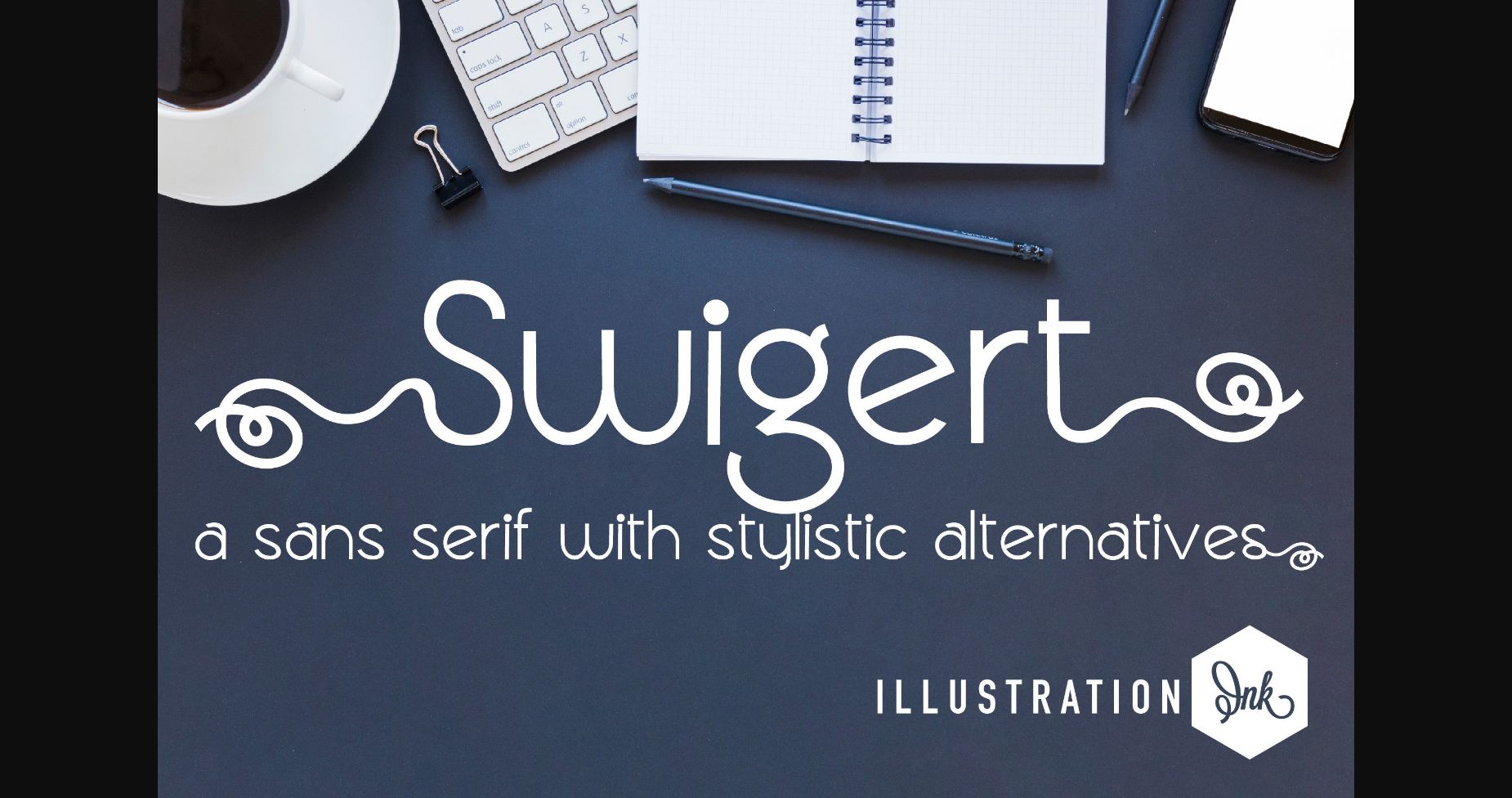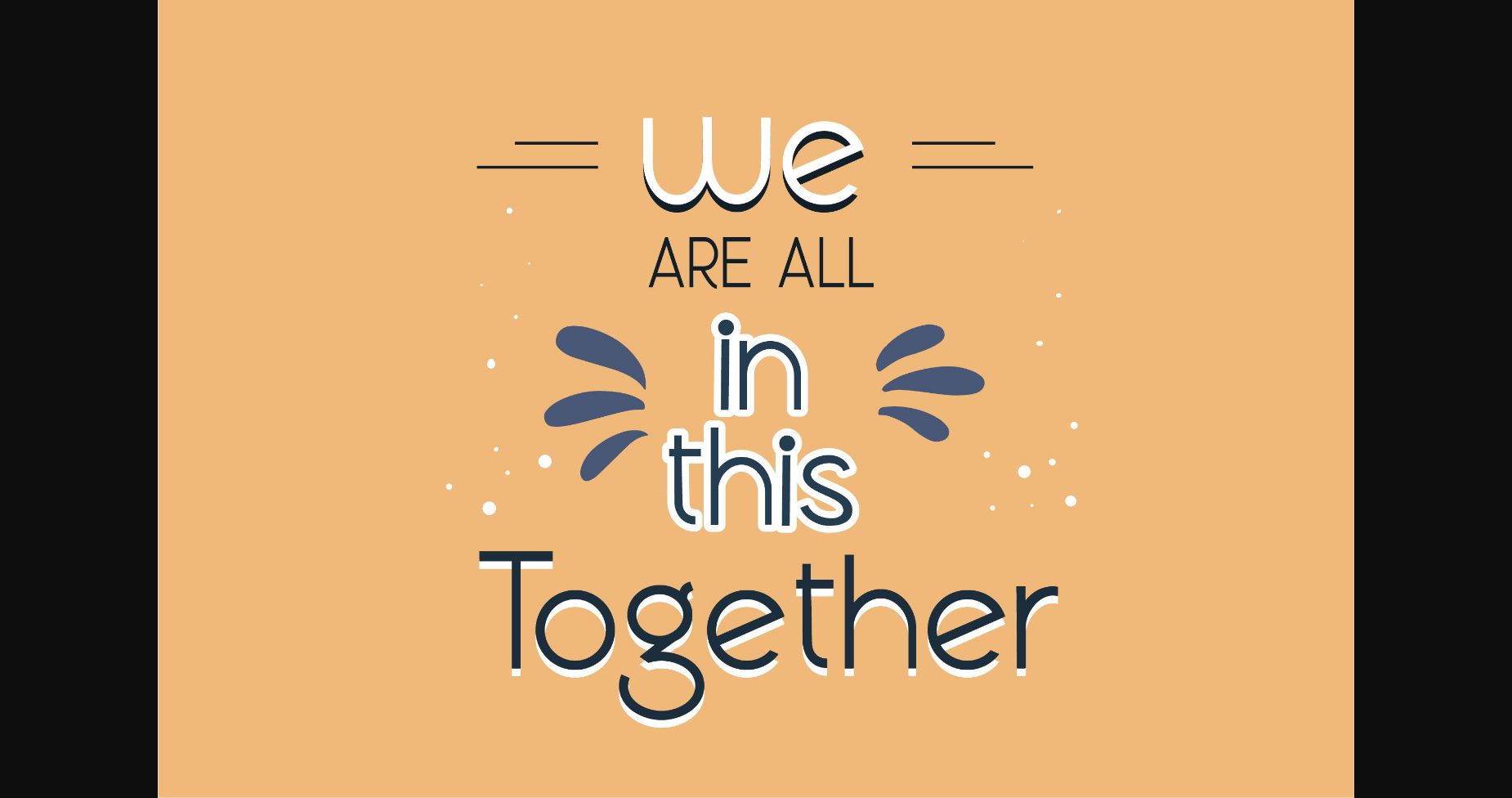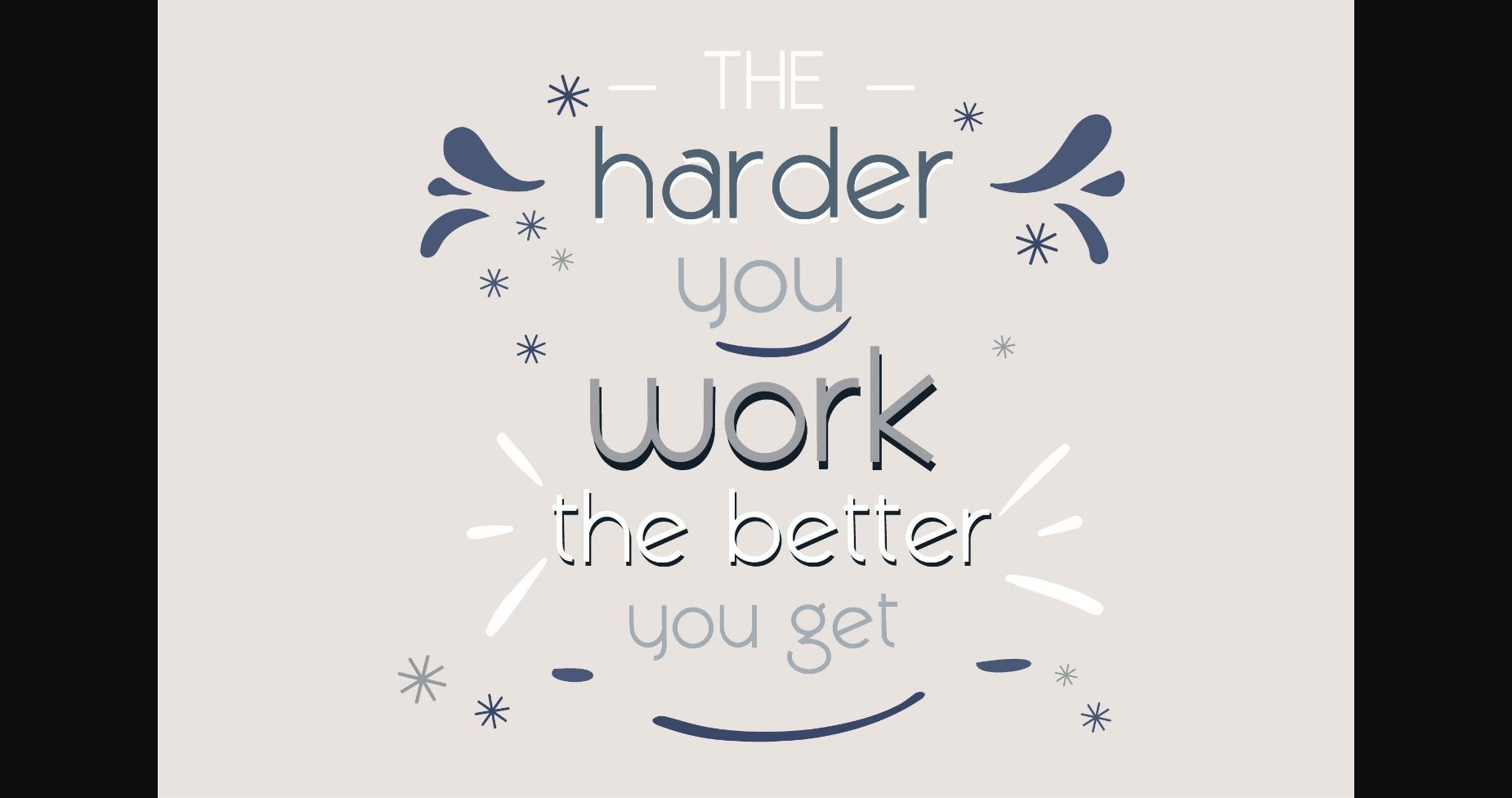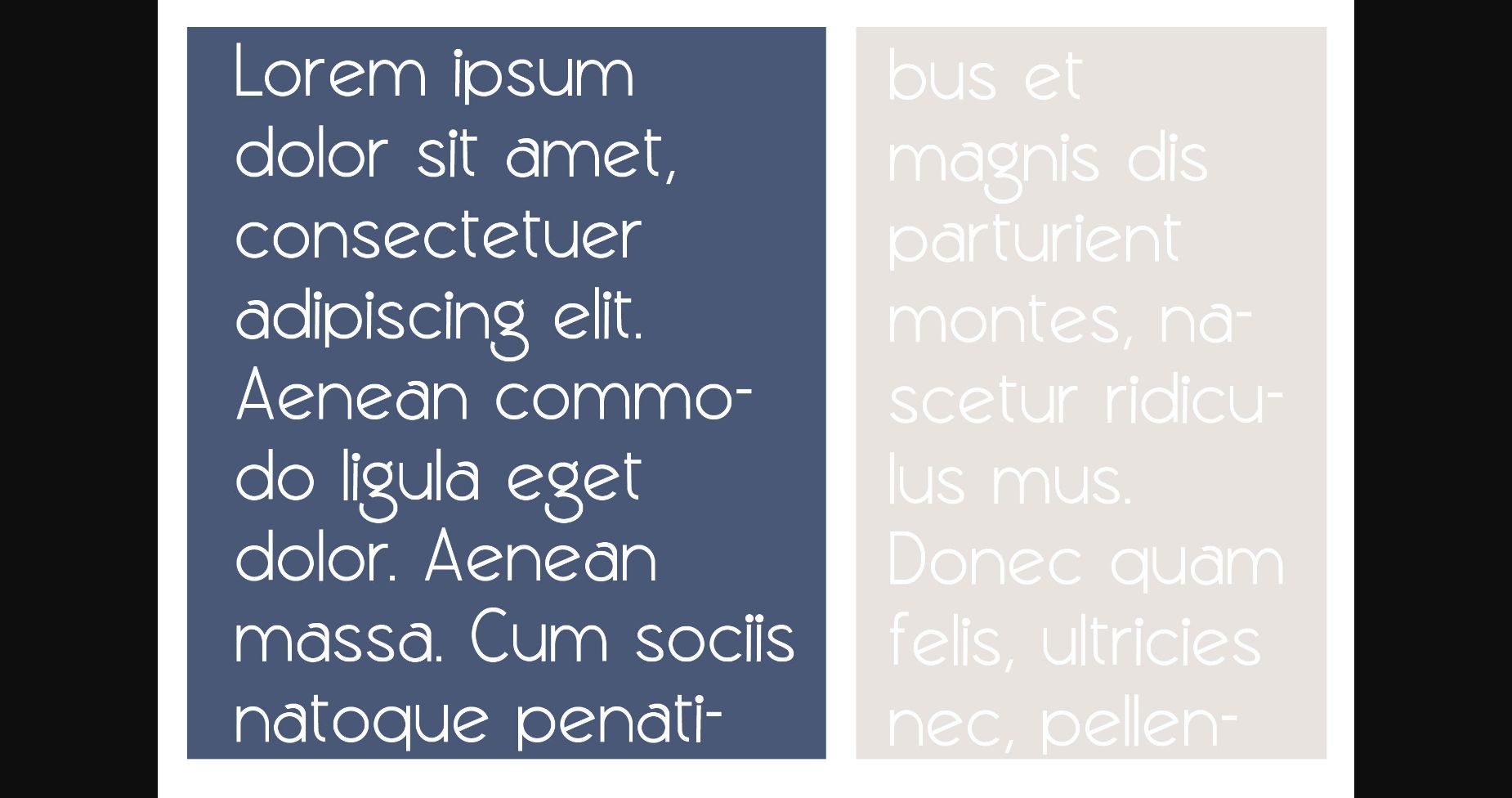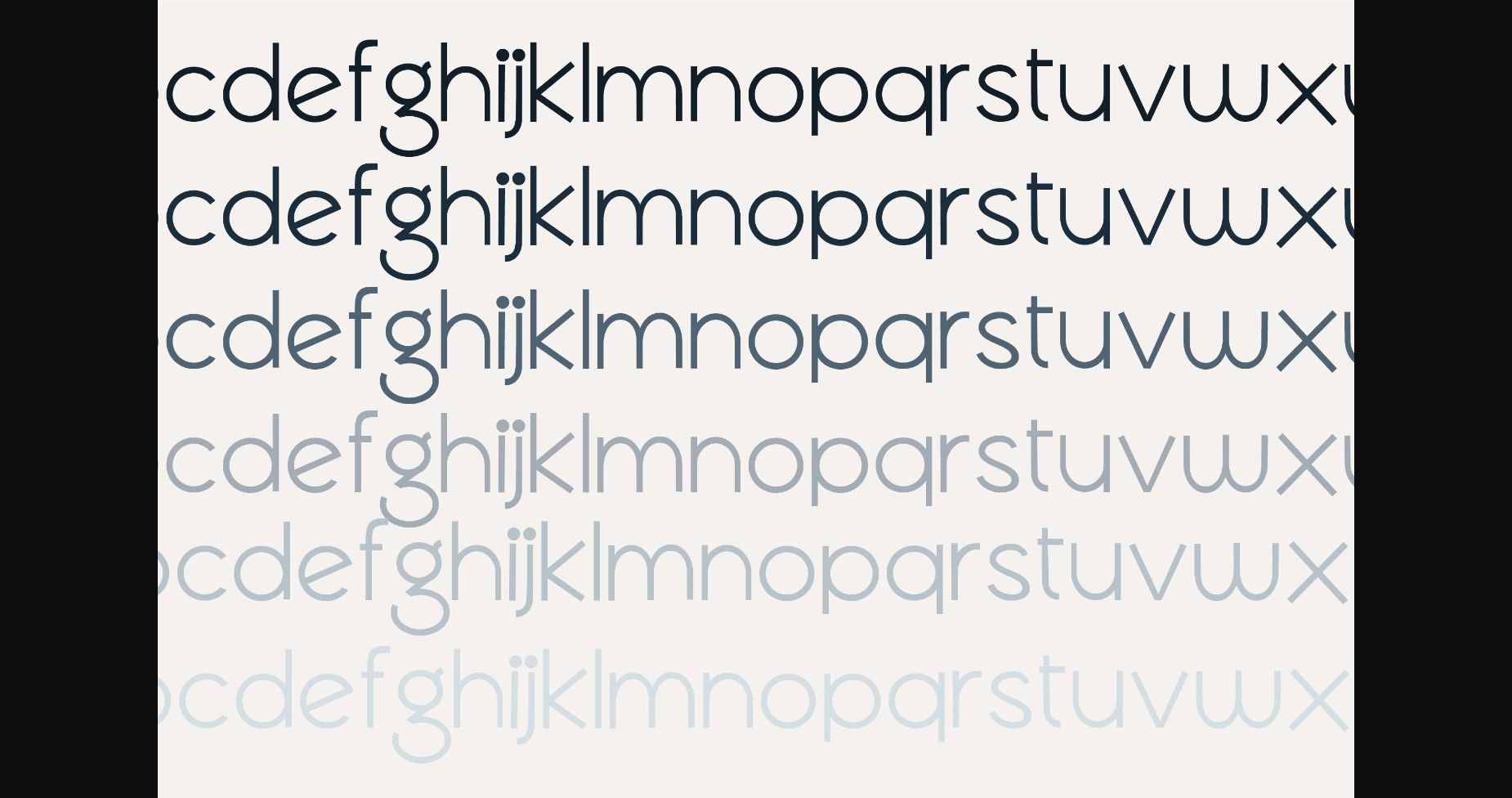
About Swigert Font
This simple, hand-crafted sans serif has stylistic alternatives available for both the uppercase and lowercase that you can access through your system’s glyph map.